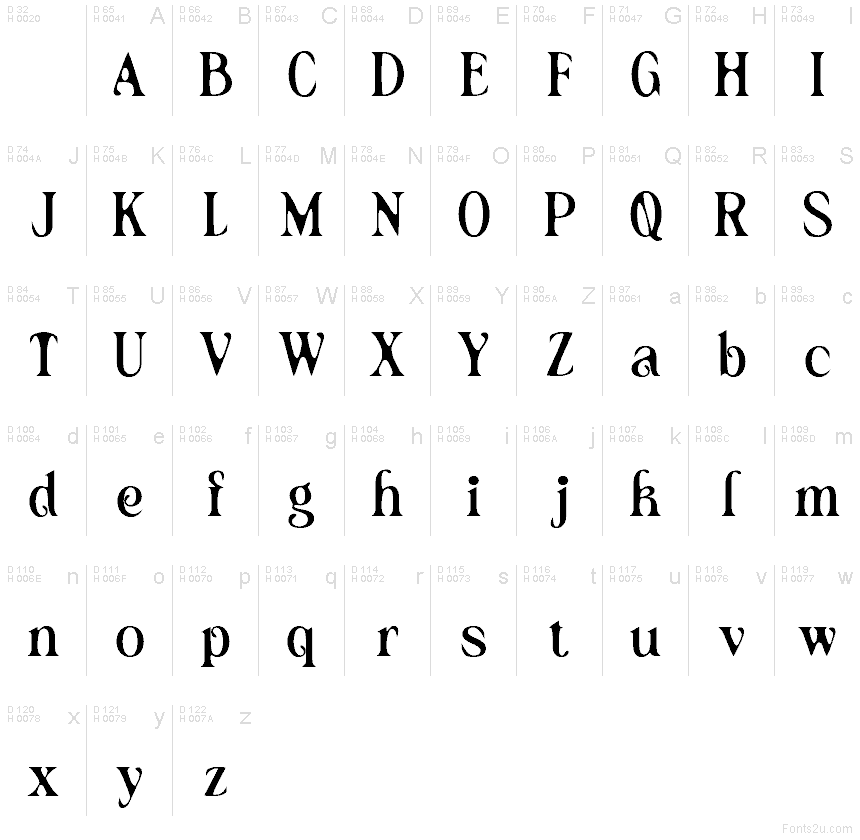
CSHayesDrawn-Regular Demo
CS Hayes Drawn font by Craft Supply Co. is a free high-contrast curly serif display font, a standout style from the CS Hayes family. It stands out with sculpted, inky curves and petal-like terminals that feel hand-drawn yet polished. Thick-to-thin strokes create a graceful rhythm, while the soft, slightly irregular edges add warmth without losing elegance.
Using CS Hayes Drawn, headlines bloom with character—boutique branding, fragrance or beauty packaging, wedding suites, editorial mastheads, café menus, posters, and book covers all shine. This free font rewards generous sizes and airy spacing; pair it with a clean humanist sans to let the flourishes breathe. It brings drama and softness in equal measure, making statements memorable but never shouty.